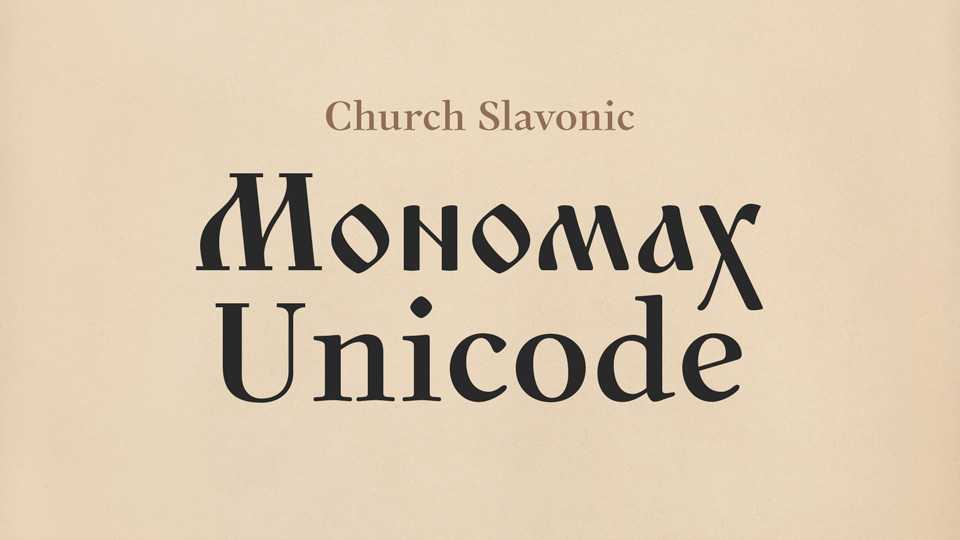
Download Monomakh Unicode font, is a Cyrillic typeface implemented in a mixed ustav/poluustav style and intended to cover needs of researches dealing with Slavic history and philology.